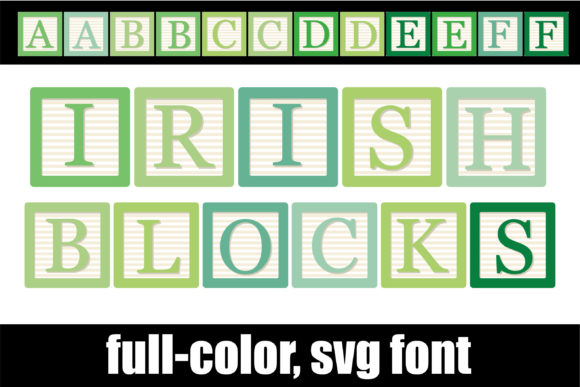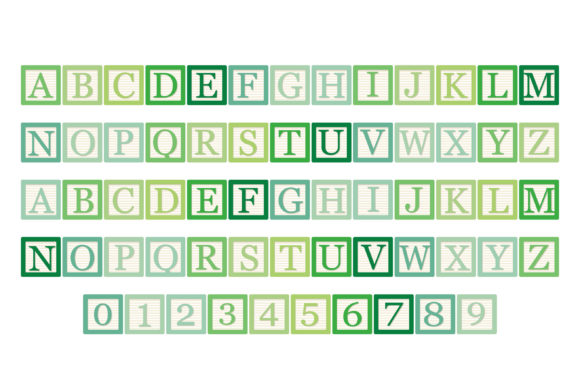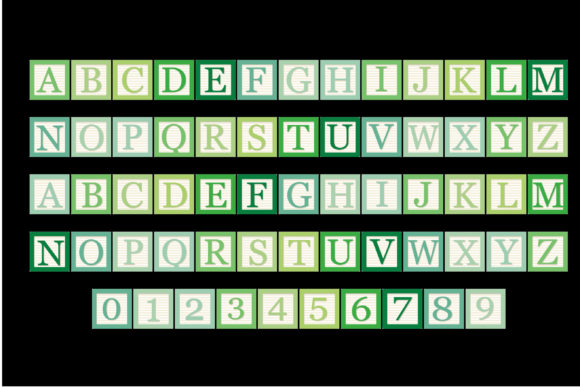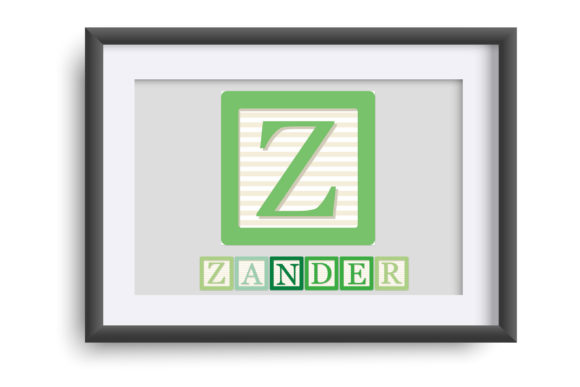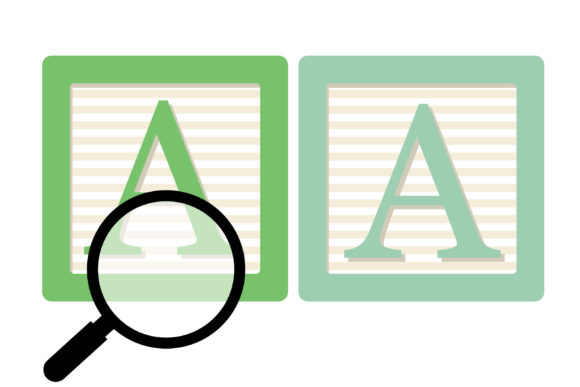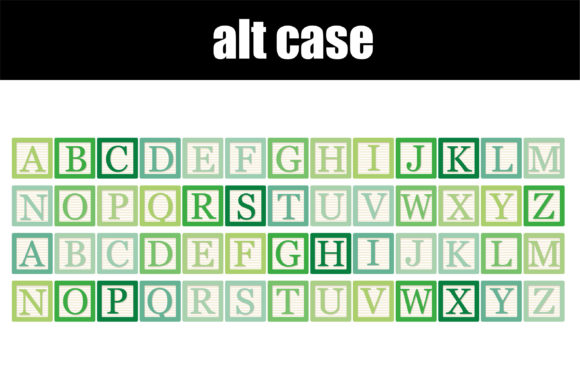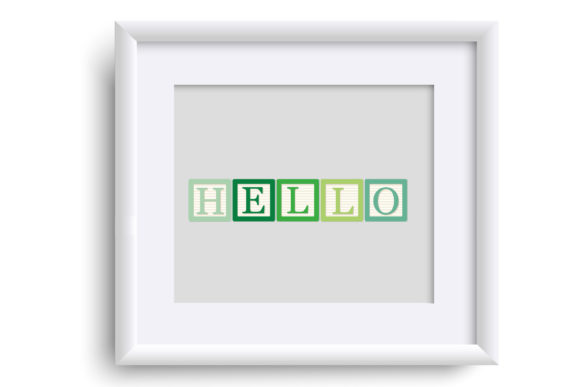
Irish Blocks Font
If you’re looking for an Irish Blocks font with youthful blocks and serif lettering, there are several options you can explore. Font marketplaces and websites that offer font downloads are great places to start your search. You can use specific keywords like “youthful blocks,” “serif lettering,” or “color font” to narrow down your options and find fonts that match your criteria.